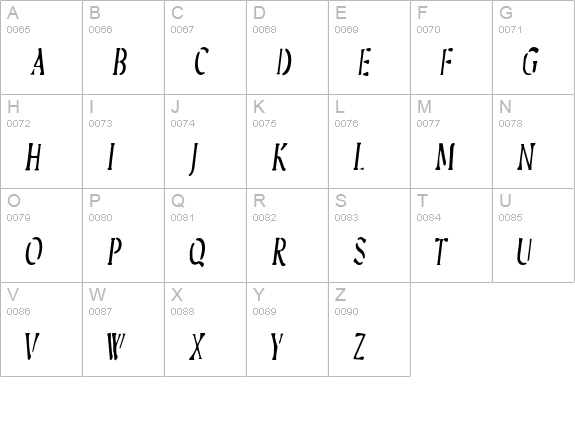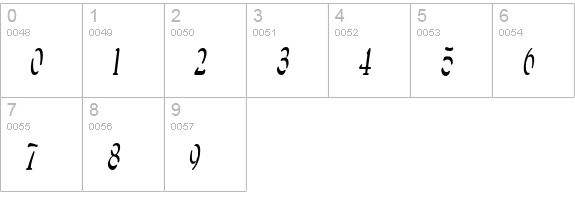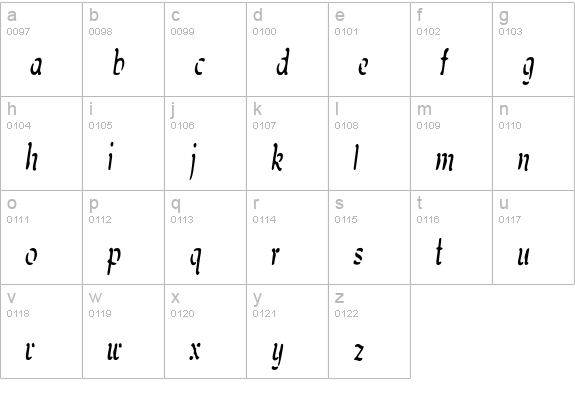
SoftAutumn Font Details
SoftAutumn is a stunningly elegant font that captures the essence of the autumn season in its graceful curves and delicate strokes. Its soft and flowing design exudes a sense of warmth and tranquility, making it the perfect choice for projects that require a touch of sophistication and charm. With its intricate details and refined typography, SoftAutumn brings a unique and captivating appeal to any design. Whether used for branding, invitations, posters, or any other creative endeavor, this font adds a touch of elegance and professionalism that sets it apart. But what makes SoftAutumn even more remarkable is that it is not only visually captivating, but also completely free. Yes, you read that right! SoftAutumn is freely available to download at FontsMarket.com. This means that you can add this beautiful font to your collection without spending a dime. So, whether you're a professional designer looking to enhance your creations or a casual user in search of a font that will make your personal projects stand out, SoftAutumn is the perfect choice. Its versatile and timeless design, combined with its availability as a free download, make it a must-have for anyone who appreciates high-quality typography. Don't miss out on the opportunity to add SoftAutumn to your font library. Visit FontsMarket.com today and experience the beauty and elegance of this remarkable font for yourself.